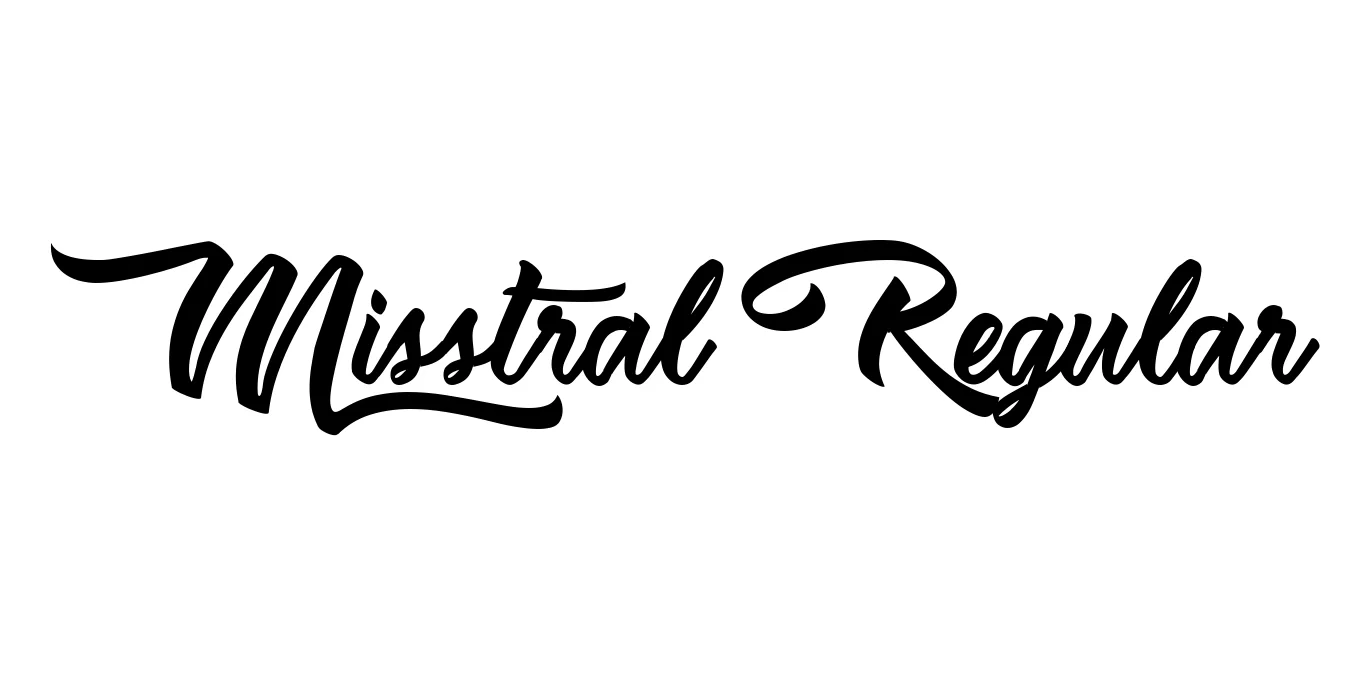
Misstral Regular
Designed by Roger Excoffon
| Font Name | Misstral |
| Designer | Roger Excoffon |
| Similar Fonts | Brush Script, Kaufmann, Rage Italic, Zapfino |
Mistral is a script typeface designed by the renowned French graphic artist Roger Excoffon and released by the Fonderie Olive in 1953. The font was specifically modeled after Excoffon's own handwriting, aiming to capture the fluid, energetic, and casual motion of a brush or felt-tip pen. Unlike many other script fonts of the era that maintained a rigid formal structure, Mistral broke the mold by featuring a lack of a strict baseline and strokes that seem to flow naturally into one another, providing a sense of immediacy and personality.
Over the decades, Mistral has transcended its mid-century origins to become a global icon of typography. It became particularly synonymous with the 1980s neon aesthetic and has been used extensively in cinematic titles, music album covers, and informal commercial signage. Its organic connectivity and expressive weight make it a timeless choice for designers who want to convey a human touch without sacrificing the legibility and impact required for modern display purposes.
Misstral Regular Best Uses
Ideal for informal logos and identity systems that require a personal, hand-drawn touch.
Perfect for high-energy promotional materials, flyers, and creative posters.
Great for short, expressive headings in editorial layouts and web design.
A classic choice for recreating the iconic, retro look of 1980s neon signage.